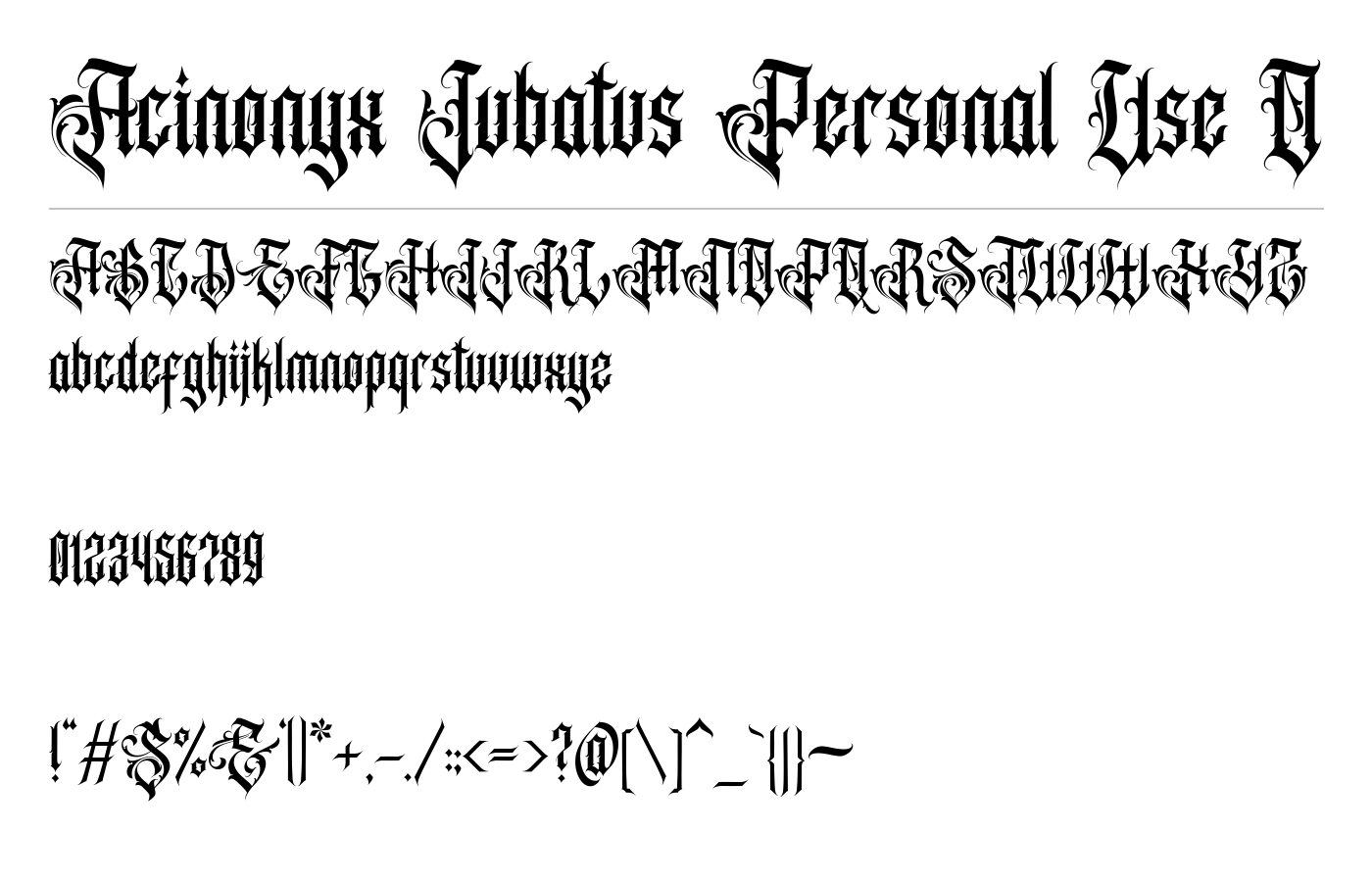
Acinonyx Jubatus Personal Use O is a highly ornamental blackletter font characterized by sharp, intricate strokes and strong vertical emphasis. Its bold, condensed letterforms with elaborate decorative elements evoke a vintage gothic style, making it ideal for creating dramatic, historic, or edgy visual statements. This font works best in logos, posters, or headlines where a striking and old-world atmosphere is desired.
Acinonyx Jubatus Personal Use O Font
About Acinonyx Jubatus Personal Use O Font